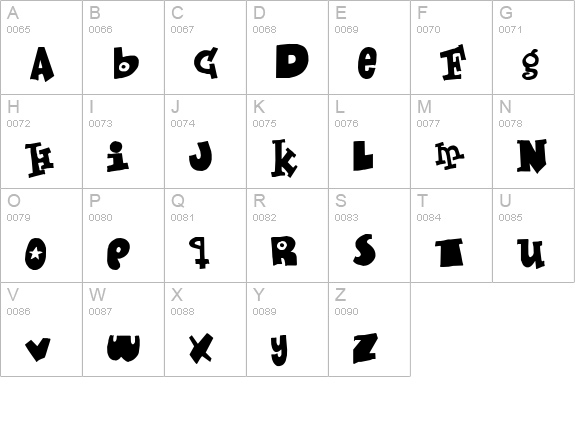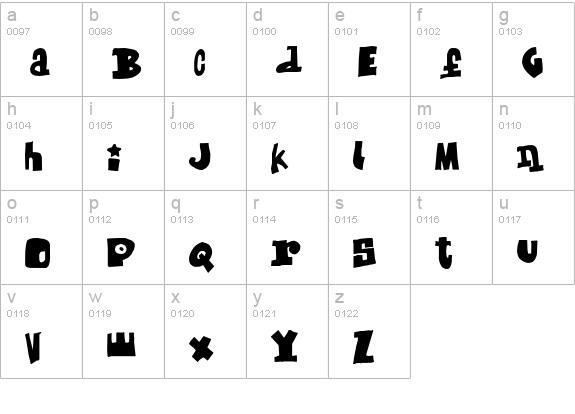
Mixed up Font Details
Mixed up font is a unique and creative typeface that will add a touch of fun and excitement to any project. With its playful design and mixed-up letters, this font is perfect for making a statement and standing out from the crowd. Whether you're working on a poster, logo, or social media graphic, Mixed up font will bring a fresh and modern look to your design. The best part about Mixed up font is that it is completely free to download at FontsMarket.com. This means you can easily access this eye-catching font and start using it in your projects right away. Don't miss out on the opportunity to add a touch of whimsy and creativity to your designs with Mixed up font - download it today and let your creativity run wild!